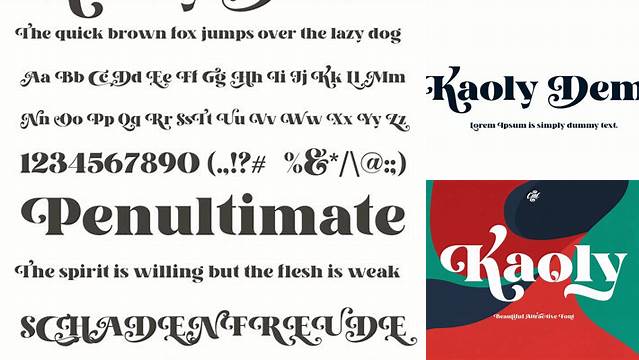
Kaoly Demo Fonts: Free Typography For Your Designs
Are you looking to add a touch of elegance, playfulness, or sophistication to your design projects? Look no further! The free fonts Kaoly Demo offers a fantastic opportunity to explore a diverse range of typography options without spending a dime. Guys, this is your chance to elevate your design game with beautiful fonts that can transform your text into captivating visual elements. This comprehensive guide will delve into everything you need to know about the Kaoly Demo fonts, including their features, usage, and how to access them. Get ready to dive into the world of typography and discover how these free fonts can enhance your creative endeavors. Let's get started!
H2: Understanding the Essence of Free Fonts Kaoly Demo
When we talk about free fonts Kaoly Demo, we're essentially referring to a selection of fonts from the Kaoly font family that are available for free use. These demo fonts usually offer a taste of what the complete font package provides, allowing designers and enthusiasts to experiment with different styles and characters before making a purchase. The beauty of these free fonts lies in their accessibility; they democratize design by providing high-quality typography options to anyone, regardless of their budget. This means you can create stunning visuals for personal or even commercial projects without worrying about licensing fees, which is a massive advantage for freelancers, small businesses, and hobbyists. The free fonts Kaoly Demo often include a basic character set, enough to get you started on your projects. You'll typically find the essential alphabets, numbers, and punctuation marks. This limited character set is still sufficient for various design needs, from creating attractive headlines to crafting visually appealing body text for shorter articles or social media posts.
This allows you to assess whether the font aligns with your design vision before committing to the full version. The accessibility of these fonts allows you to use them in various design projects. You can try them out on posters, flyers, social media graphics, website headers, and more. Whether you're a seasoned designer or just starting out, the Kaoly Demo fonts provide a practical way to test the waters and add a touch of professionalism to your work. These fonts offer a gateway to unlocking your creativity and experimenting with different typographic styles without any financial barriers. You are free to experiment with various projects, such as personal blogs, creating graphics for social media, or even designing invitations and presentations. The possibilities are endless! These fonts also represent a chance to learn more about typography. Experimenting with different typefaces, spacing, and sizing helps you better understand how fonts work and how they affect your design. This knowledge can be invaluable, regardless of your design experience. You'll learn how to choose fonts that complement each other and how to make text readable and visually appealing. The free fonts Kaoly Demo is a win-win situation for designers of all levels.
H2: Exploring the Design Aesthetics of Kaoly Demo Fonts
The free fonts Kaoly Demo often showcases a diverse range of design aesthetics, catering to various creative needs. One of the key aspects is the style variations, which can include everything from elegant serif fonts that evoke a sense of sophistication to bold sans-serif fonts that communicate modernity and clarity. This diversity ensures that designers have a wide array of options to choose from, making it easier to find a font that perfectly matches the tone and message of their project. Consider the design of the fonts themselves. The attention to detail, the balance of the letterforms, and the overall visual impact are critical to the overall aesthetic. Some fonts may focus on readability, ensuring that the text is easy to scan and understand, while others may prioritize visual flair, incorporating unique curves, angles, and embellishments to make a statement. Let's dive deeper! Serif fonts, typically characterized by the small decorative strokes (serifs) at the end of letters, often convey a sense of tradition, reliability, and sophistication. They are commonly used in print publications, such as books and magazines, where readability is paramount. Sans-serif fonts, on the other hand, lack these serifs, giving them a cleaner, more modern appearance. They are frequently used in digital environments, such as websites and mobile apps, where they excel at conveying clarity and minimalism. The availability of these styles within the free fonts Kaoly Demo package ensures that designers can access fonts suitable for various design applications.
Beyond these broad categories, the Kaoly Demo fonts also may include fonts with unique features. Perhaps there will be handwritten-style fonts that bring a personal touch, or display fonts designed to stand out. Display fonts often feature exaggerated designs and are perfect for headlines or short, eye-catching text. The free fonts Kaoly Demo allows designers to experiment with these different styles and find the ideal fit for their projects. Experimenting with different fonts is a crucial part of the design process, and having access to a wide range of free options makes it easier to explore creative possibilities. Designers can create mockups, test various combinations, and make sure the font aligns with the overall visual concept. The free fonts Kaoly Demo gives designers the chance to practice, learn, and improve their design skills, ultimately helping them create more visually stunning and effective designs. Always remember, the aesthetic of a font is not just about its appearance but also how it communicates the message and overall mood of a design. Therefore, make sure to pick fonts that suit the design project. Consider readability, target audience, and the overall concept of your project. The right font will ensure your work stands out and creates a memorable experience for your audience.
H2: The Practical Usage of Free Fonts Kaoly Demo in Design Projects
The free fonts Kaoly Demo offers a practical way to integrate high-quality typography into your design projects without incurring any costs. Whether you're a seasoned professional or a budding enthusiast, these fonts can be an incredibly valuable resource, making your designs more polished and engaging. One of the most common applications is in creating visual content for social media. From eye-catching Instagram posts to informative Facebook graphics, the right font can significantly enhance your content's visual appeal. The Kaoly Demo fonts may provide a selection of styles that are optimized for digital platforms, such as sans-serif fonts that are easy to read on screens. You can use them to create headlines, quotes, or short texts, adding an extra layer of professionalism to your social media presence. Another area where these fonts shine is in website design. Typography plays a crucial role in website aesthetics and usability, influencing how visitors perceive and interact with the content. The free fonts Kaoly Demo lets you experiment with different font combinations for headlines, body text, and navigation elements, improving your website's visual hierarchy and overall user experience. You can test readability, optimize for different screen sizes, and ensure your website design is both attractive and functional. The fonts can also be used for creating marketing materials, such as flyers, brochures, and posters. With the right font, you can instantly grab attention and create a lasting impression. The free fonts Kaoly Demo gives you access to different fonts that are best for print design, such as fonts with a strong visual impact or those that prioritize readability.
This allows you to produce visually appealing designs that promote your products or services effectively. For personal projects, the free fonts Kaoly Demo can be used to elevate your creations. You can use them in invitations, greeting cards, presentations, and even personal blogs or portfolios. By choosing the right font, you can express your personality, reflect your unique style, and give your work a professional touch. Whether you are designing a business card or creating a personal website, typography matters! The fonts available in the Kaoly Demo give you the tools you need to add a visual and attractive element to your work. Remember that the choice of font should always be in line with the overall theme and purpose of your project. Choose fonts that are legible and visually appealing to ensure that your message is clear. Proper use of these fonts can help you create designs that look professional and stand out from the crowd.